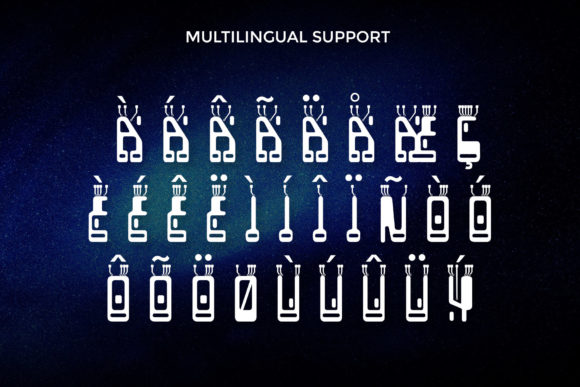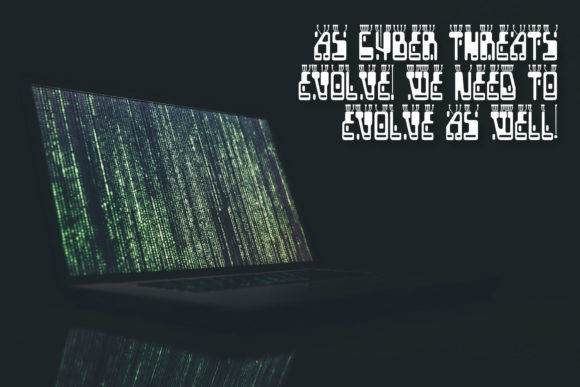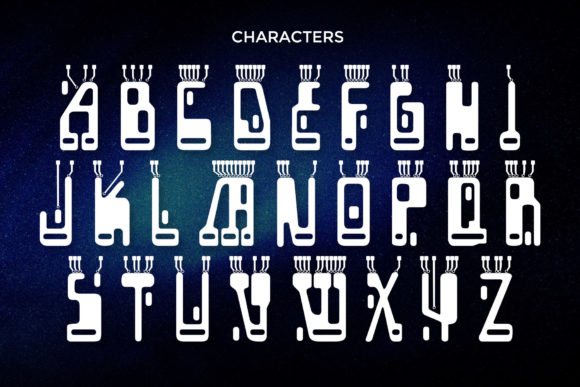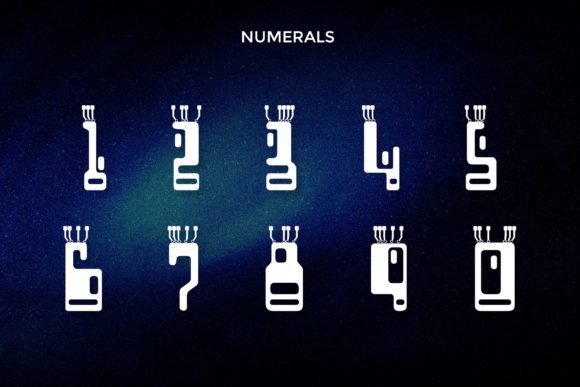
The Cyber Font: A Cool, Techno-Looking Decorative Font for Your Designs
An Honest Review of Cyber Font
So, what makes the Cyber font so special? Here are some things I love about it:
- ✨ Unique and eye-catching design: The Cyber font has a distinctive, techno-looking style that’s perfect for creating futuristic and modern designs.
- ✅ Highly versatile: This font can be used for a wide range of projects, from web designs and logos to posters and social media graphics.
- ✅ Easy to read: Despite its futuristic look, the Cyber font is surprisingly easy to read, making it perfect for body text and headlines.
Of course, no font is perfect, and here are some small quirks or limitations to keep in mind:
- 🤔 Limited suitability for formal projects: The Cyber font’s futuristic style may not be suitable for formal or traditional projects, such as corporate reports or wedding invitations.
- ⚠️ May not work well with certain languages: As with any font, the Cyber font may not work well with certain languages or scripts, so be sure to test it before using it in your project.
The Designer Inspiration Behind Cyber Font
The Cyber font was designed by a team of designers who wanted to create a font that would capture the essence of technology and innovation. Inspired by the futuristic designs of the 1980s and 1990s, they created a font that’s both modern and nostalgic. The font’s unique design is a result of their experimentation with different shapes and forms, and it’s perfect for designers who want to add a touch of futurism to their designs.
| What is the Cyber font? | The Cyber font is a cool, techno-looking decorative font that’s perfect for creating futuristic and modern designs. |